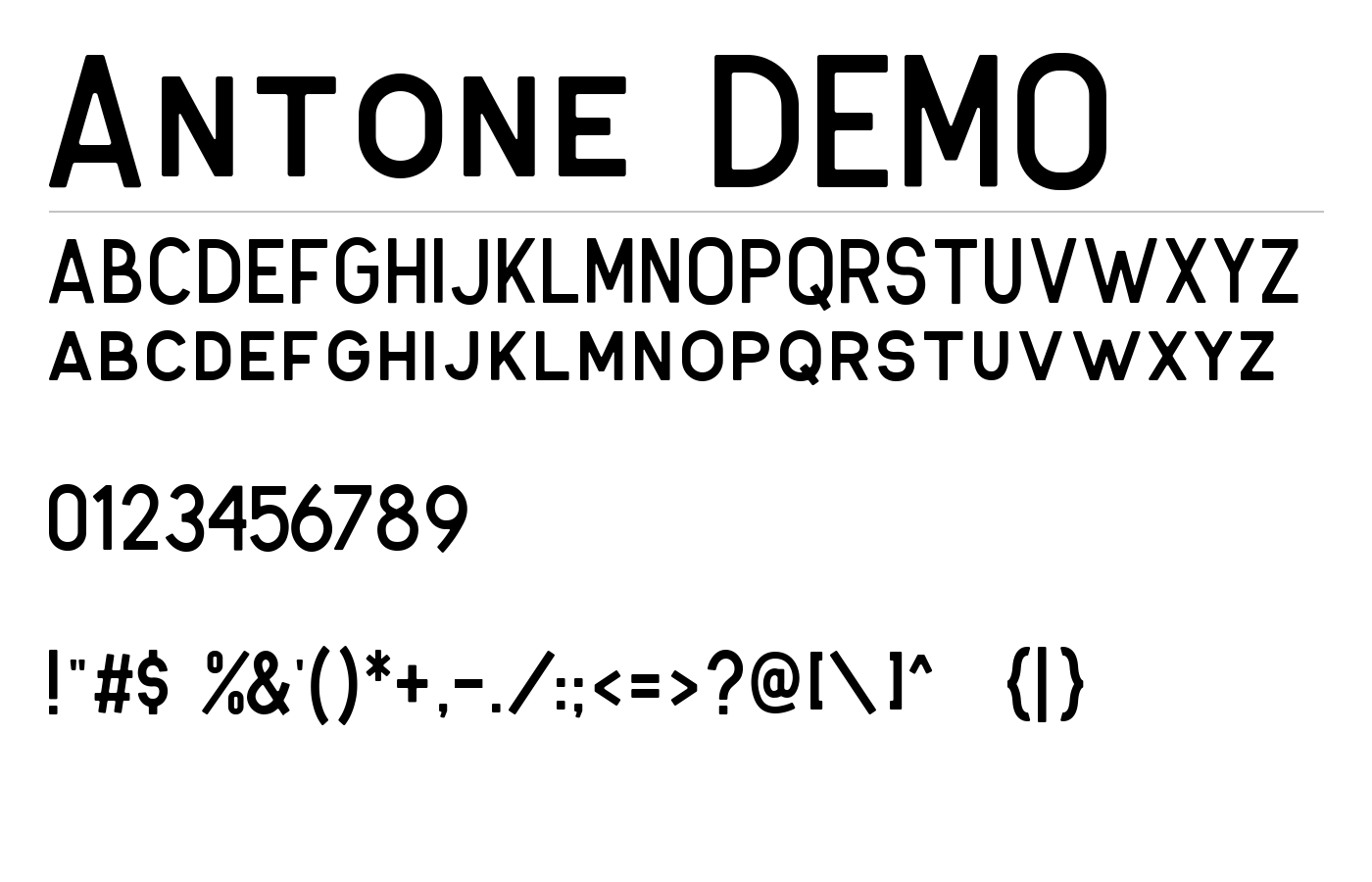
Antone DEMO is a clean, modern sans serif font with a slightly condensed structure and medium weight, offering strong legibility with its simple, geometric letterforms. Characterized by subtle rounded corners and a uniform stroke contrast, it exudes a friendly yet professional vibe, making it ideal for contemporary branding, headlines, and editorial use where clarity and a modern touch are essential. This font works well in digital and print formats, providing a versatile option that balances professionalism with approachability.
Antone DEMO Font
About Antone DEMO Font